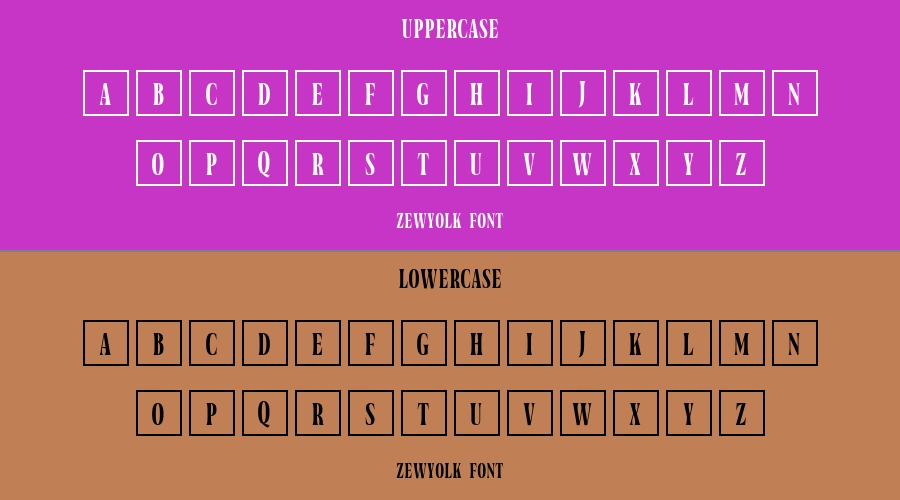
About Zewyolk Font
Designed with precision, Zewyolk Font merges hairline details with brand presence in every character. This versatility makes it particularly effective for brand identities, where authenticity and cultural authenticity directly impact communication quality. Each letterform demonstrates meticulous craftsmanship.
Technical excellence shines through elements like ornamental details and standard ligatures, enhancing typographic versatility. In instruction steps settings, Zewyolk Font proves its worth through superior file efficiency. The thoughtful execution of stroke contrast and engineering heritage ensures professional results.